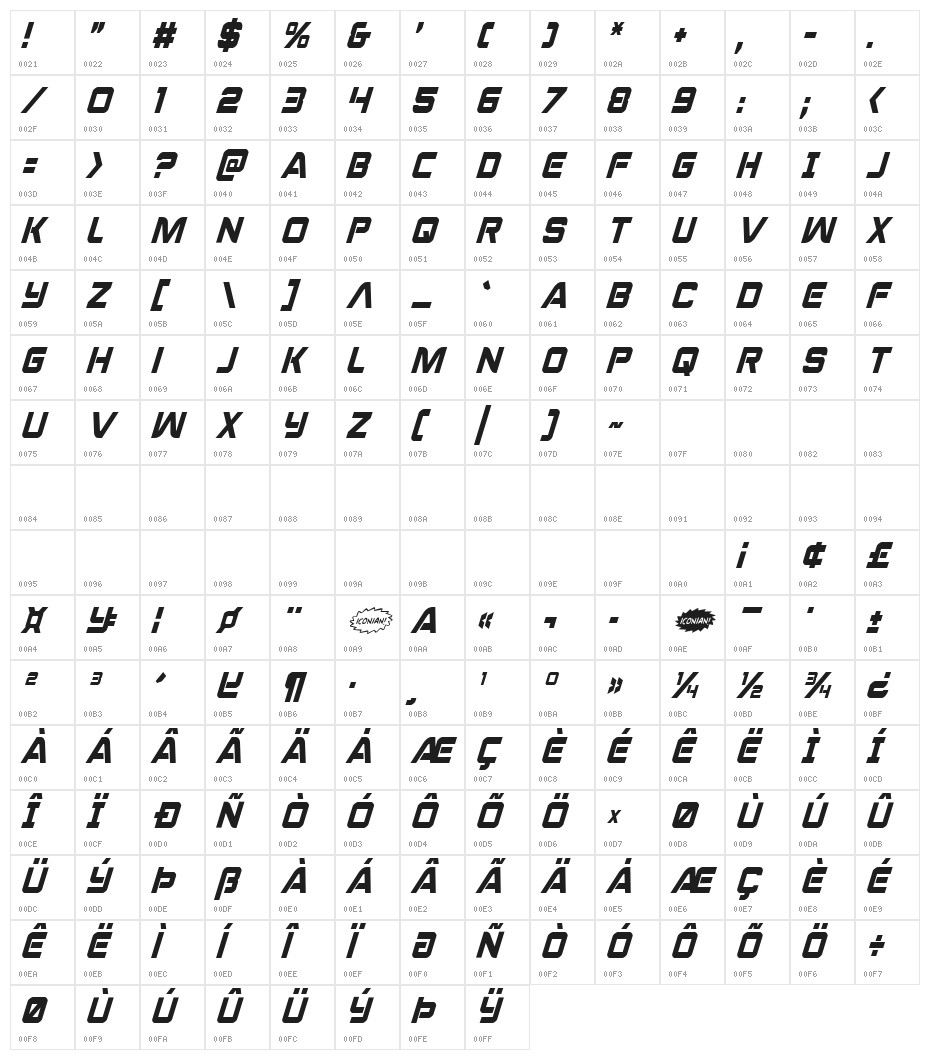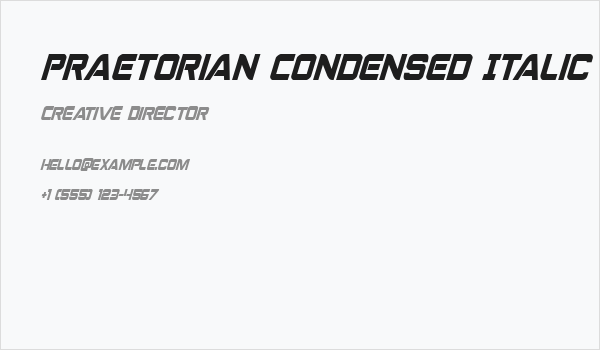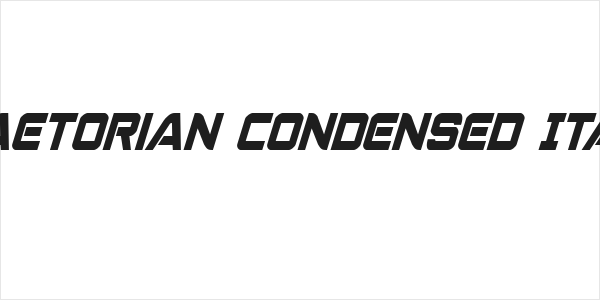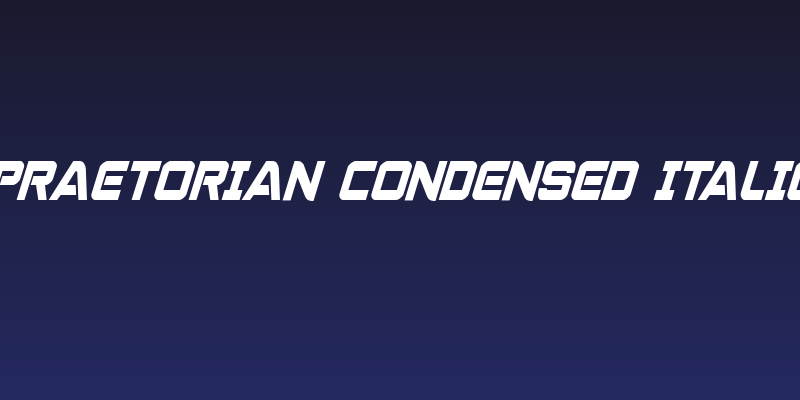
Praetorian Condensed Italic Font
Praetorian Condensed Italic Description
This font features a bold, italicized style with a condensed width, creating a dynamic and modern appearance. The characters are sharply angled, giving a sense of motion and speed. The uppercase letters are prominent and assertive, while the lowercase letters maintain a consistent style, enhancing readability. Numbers are equally bold and well-defined, making them suitable for impactful displays. Special characters are designed with the same boldness and angularity, ensuring uniformity across all glyphs. The overall design is sleek and contemporary, making it ideal for projects that require a strong visual impact.